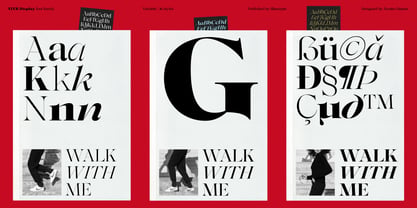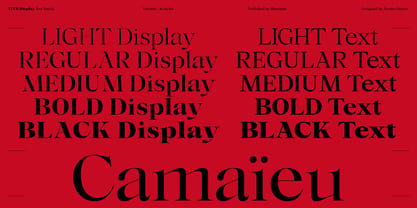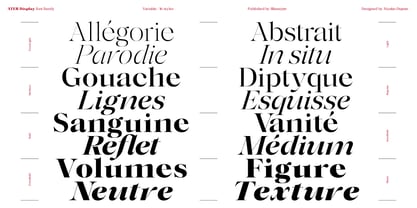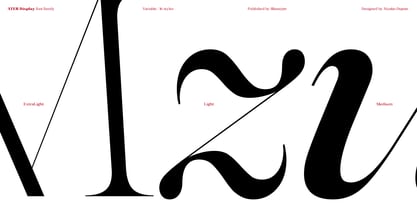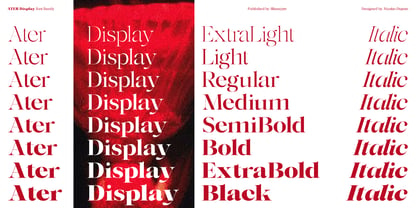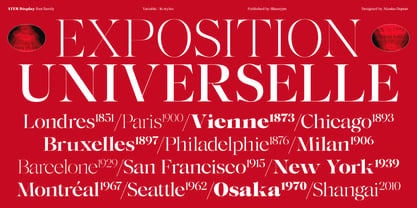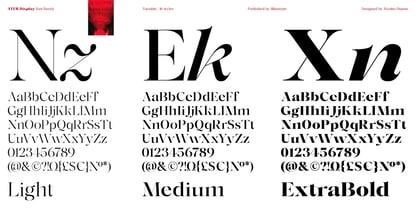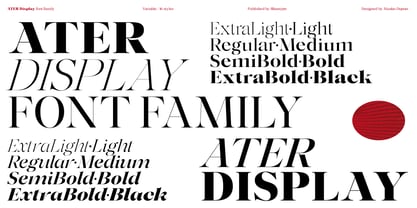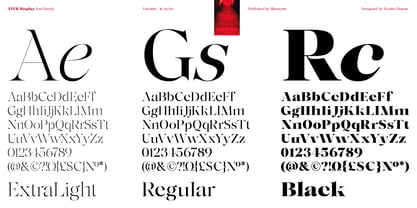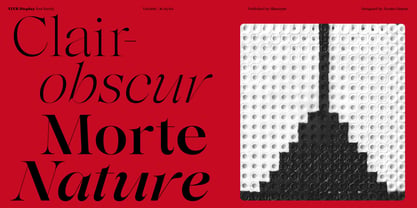
Ater Display Variable
Die Schriftfamilie Ater Display Variable wurde von Nicolas Dupuis entworfen und von Blaze Type veröffentlicht. Ater Display Variable enthält 1 Stile. Mehr über diese Familie
The Display version of Ater font family was inspired by a desire to create greater contrast between bold and thin strokes. It emphasizes the font family contemporary and versatile nature. It can still be used for layout work, such as large or small-scale title designs.
An elegant family which borrows from classic serif typefaces as well as more contemporary forms. In a spirit of bringing together as many different mediums as possible with unity in the shapes. It is a variable typeface with a letter blackening approach, to the point of finally appearing in a display-style. A thinner design, but still features those striking weights. From Extra light to Black, it goes to the extreme for optimal legibility in both small and large sizes. Thanks to these variations in tone, the white space is more prominent and highlights the typeface’s attention to detail and refinement. A family designed for creative expression, using ligatures and other glyphs to showcase its potential as a display typeface.